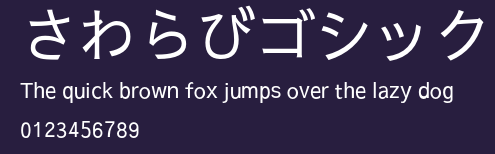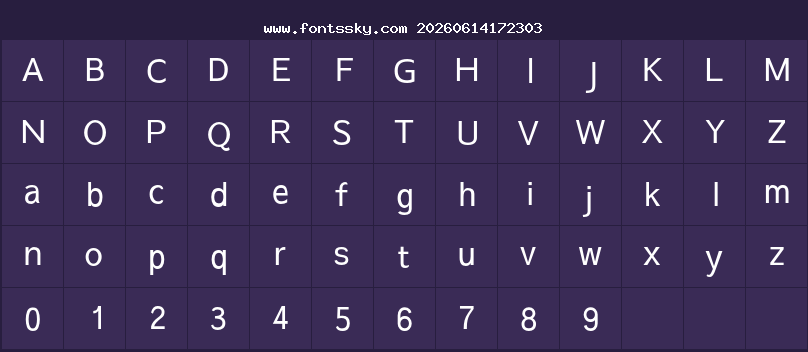
さわらびゴシック Preview
• Font Name: さわらびゴシック
• Font Style: M
• Full Font Name: さわらびゴシック
About さわらびゴシック.otf
さわらびゴシック.otf is a modern, elegant sans-serif font designed for ultimate readability and visual harmony. Perfect for branding, headlines, web design, and print materials.